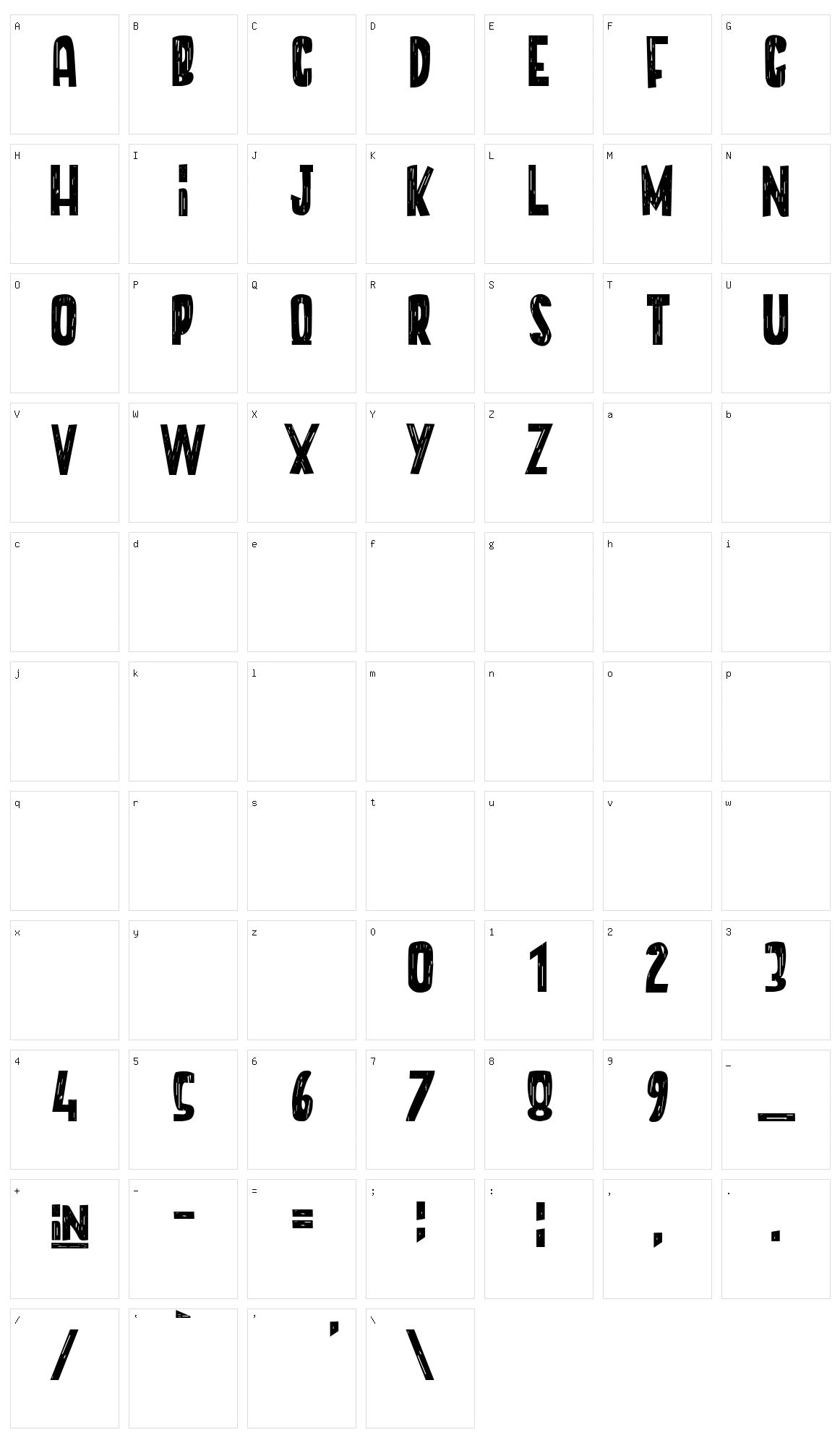
The free font Unicorn In Paradise is carefully designed by Octotype | Thomas Boucherie, showcasing a thoughtful balance of creativity and usability and falls under the Eroded font style. When you download the ZIP file, it contains only 30.72 KB of font files, making it lightweight and quick to download. Please review the license details below to understand permitted usage and distribution rights. If license information is not available, we recommend using this font for personal projects only or contacting the author directly for commercial usage permissions.